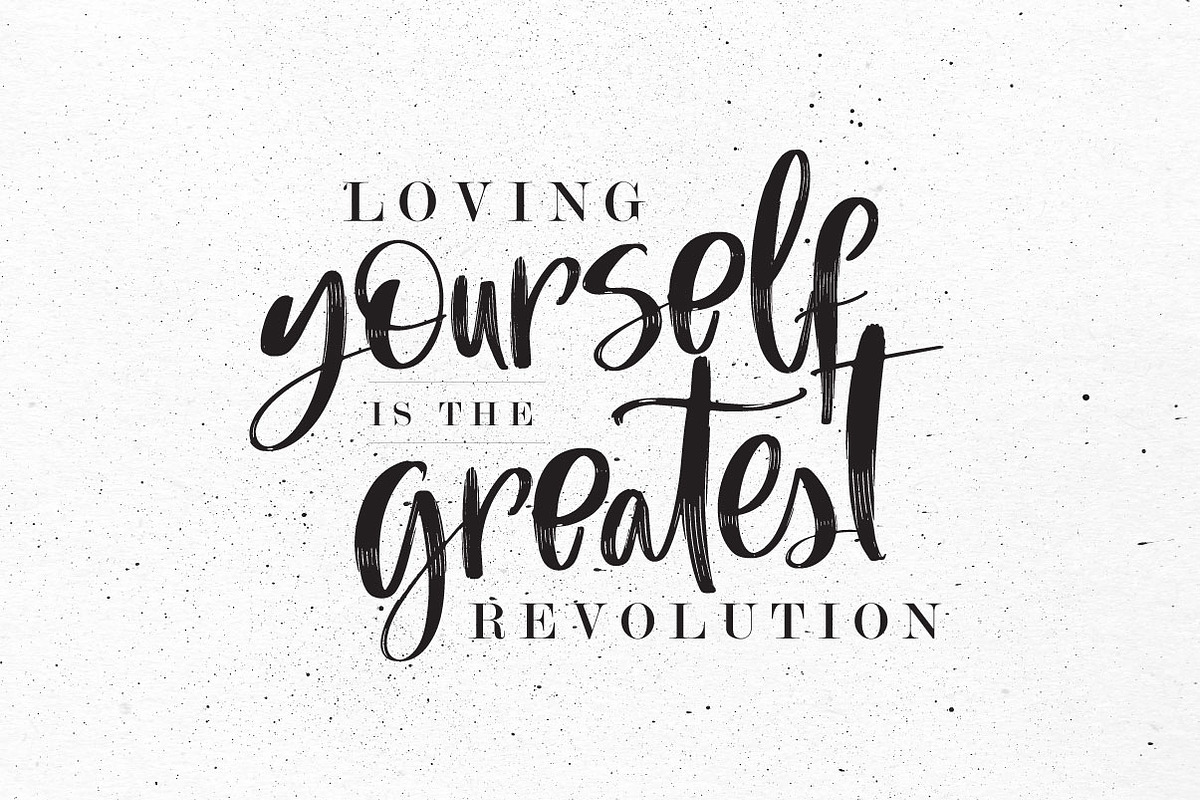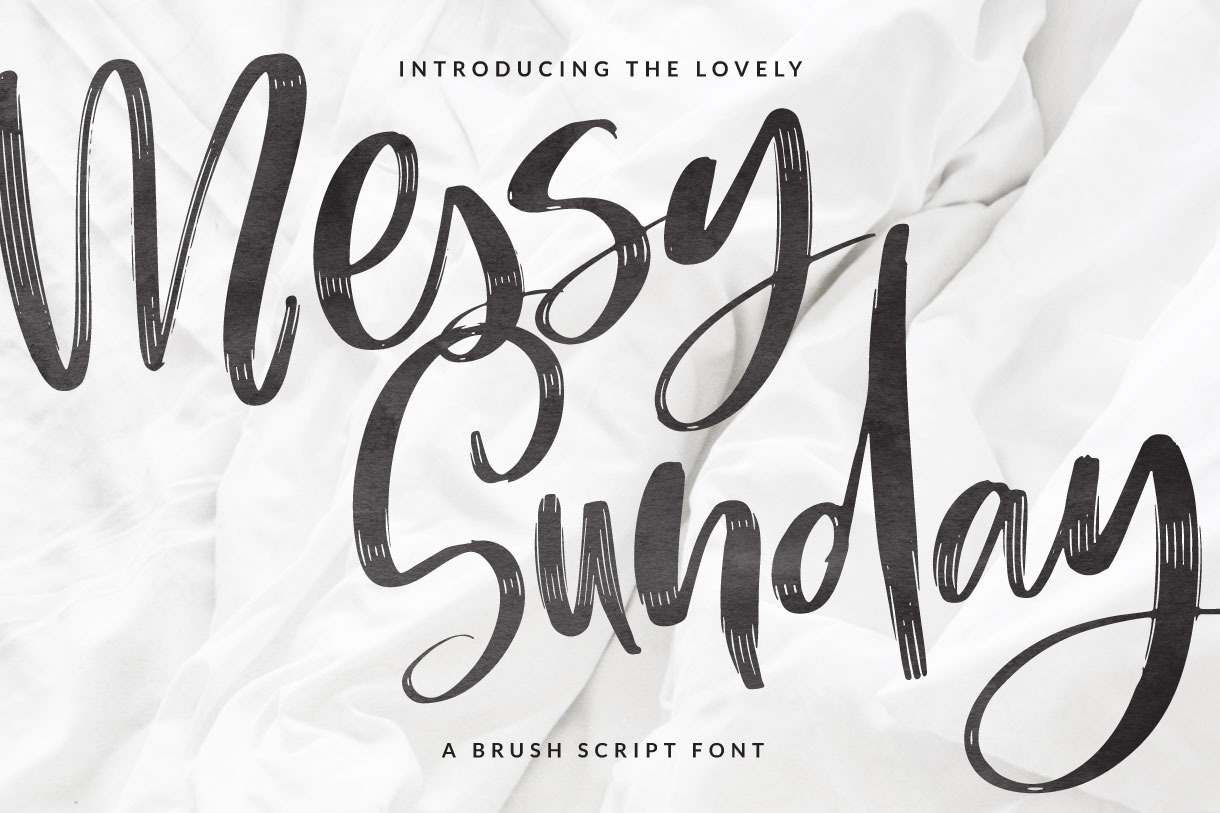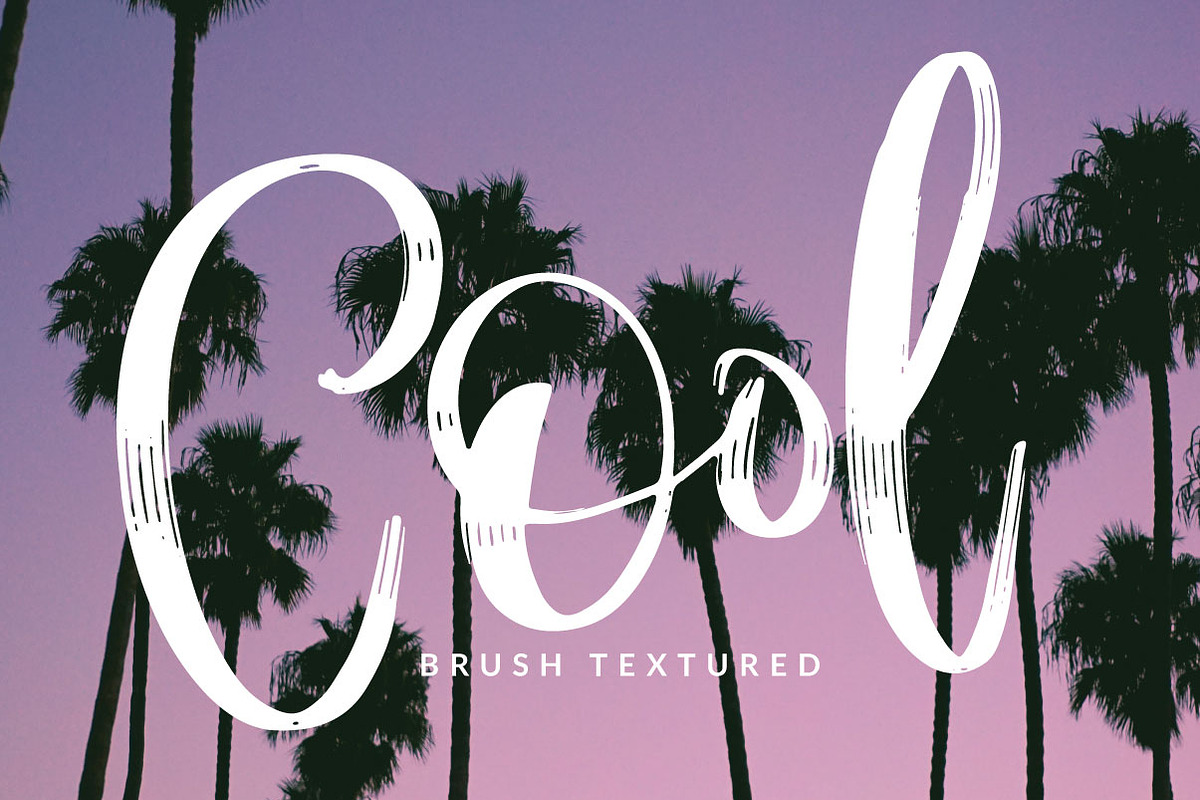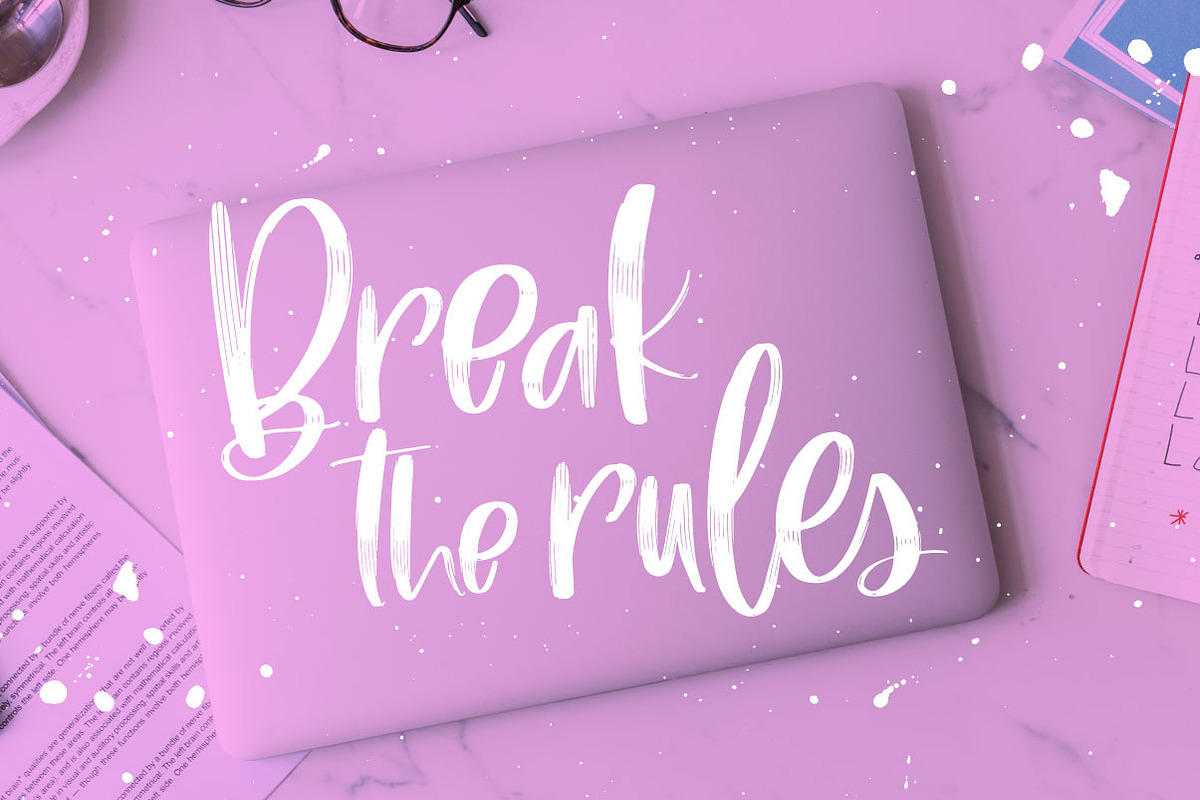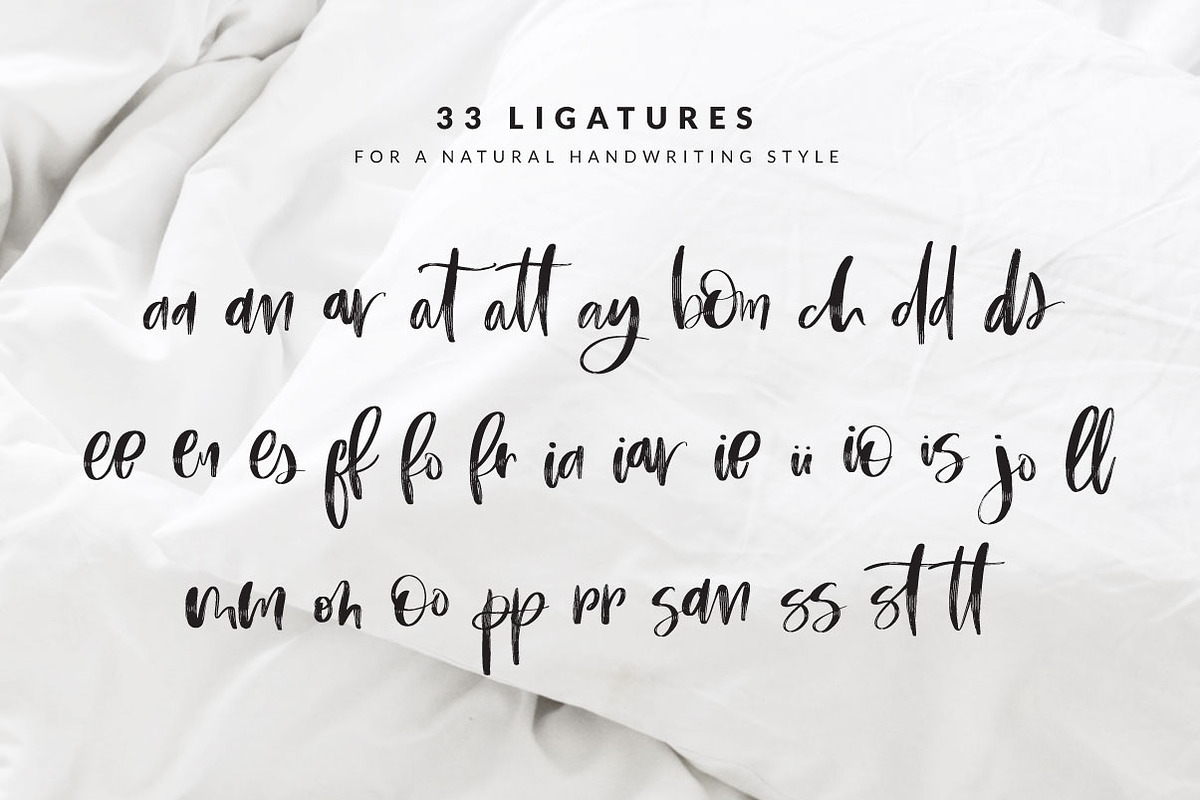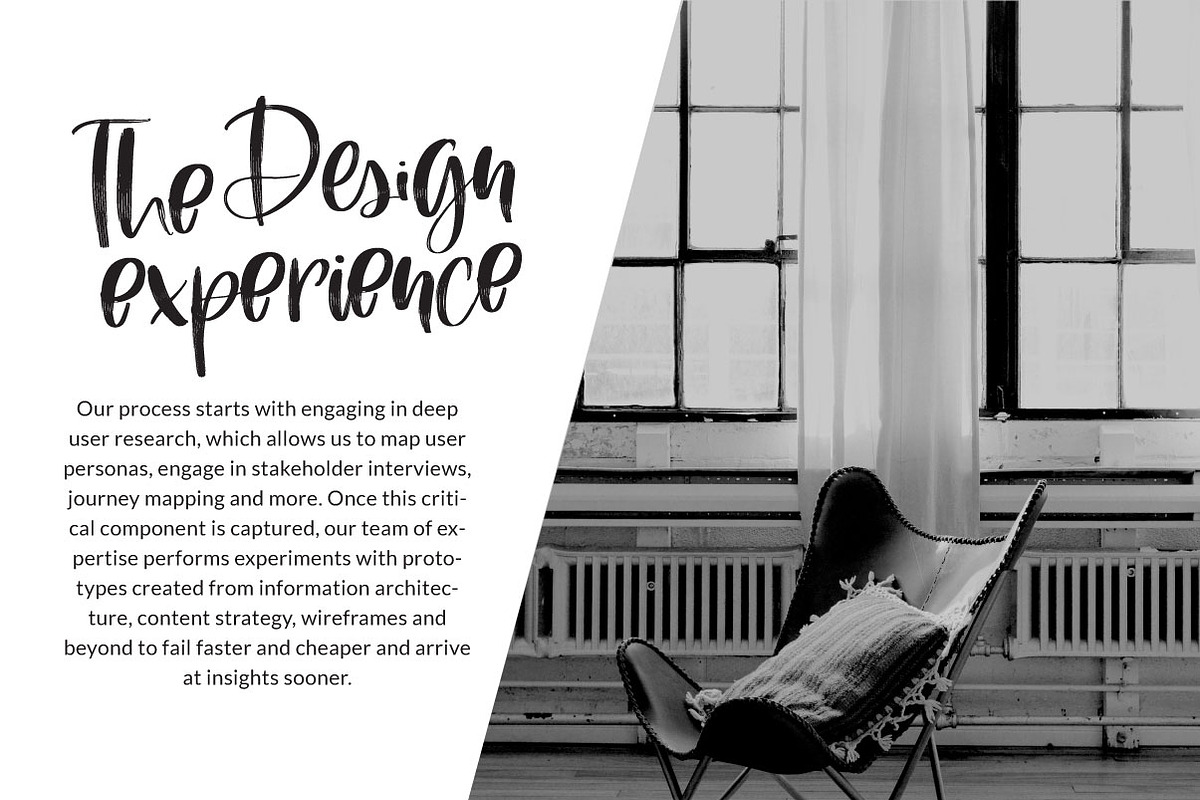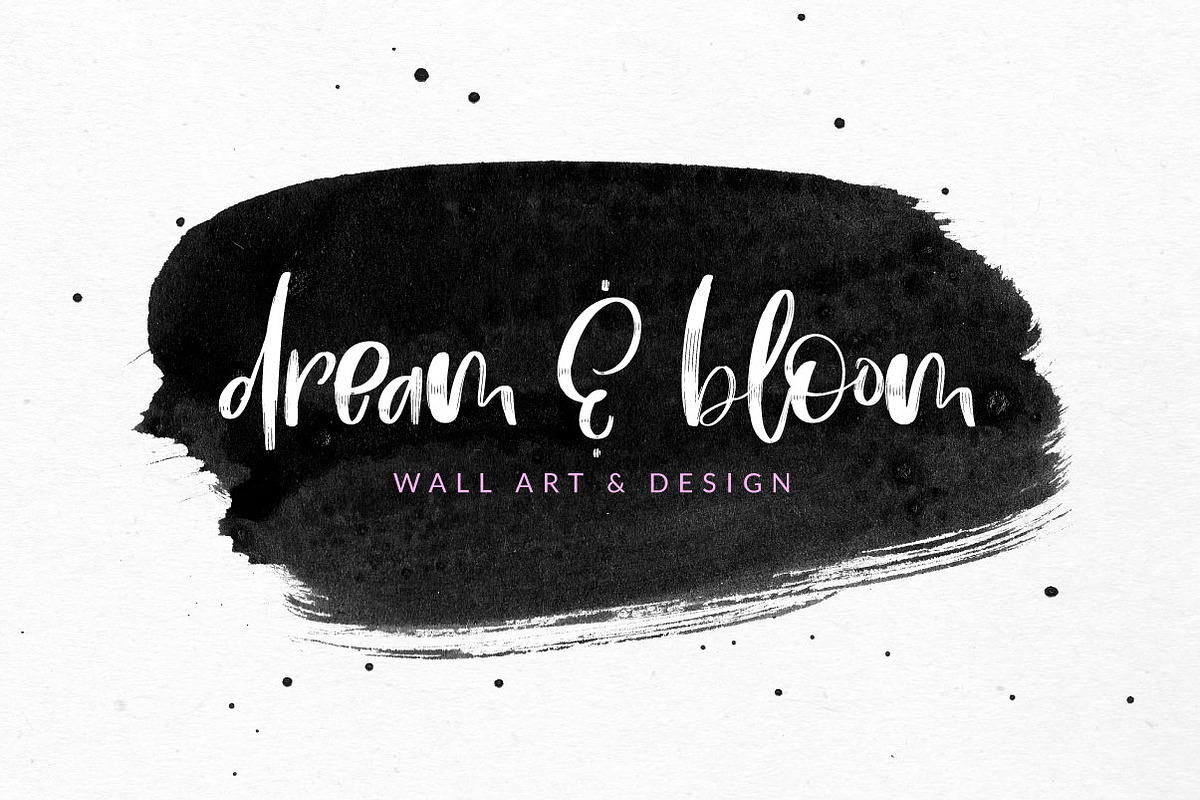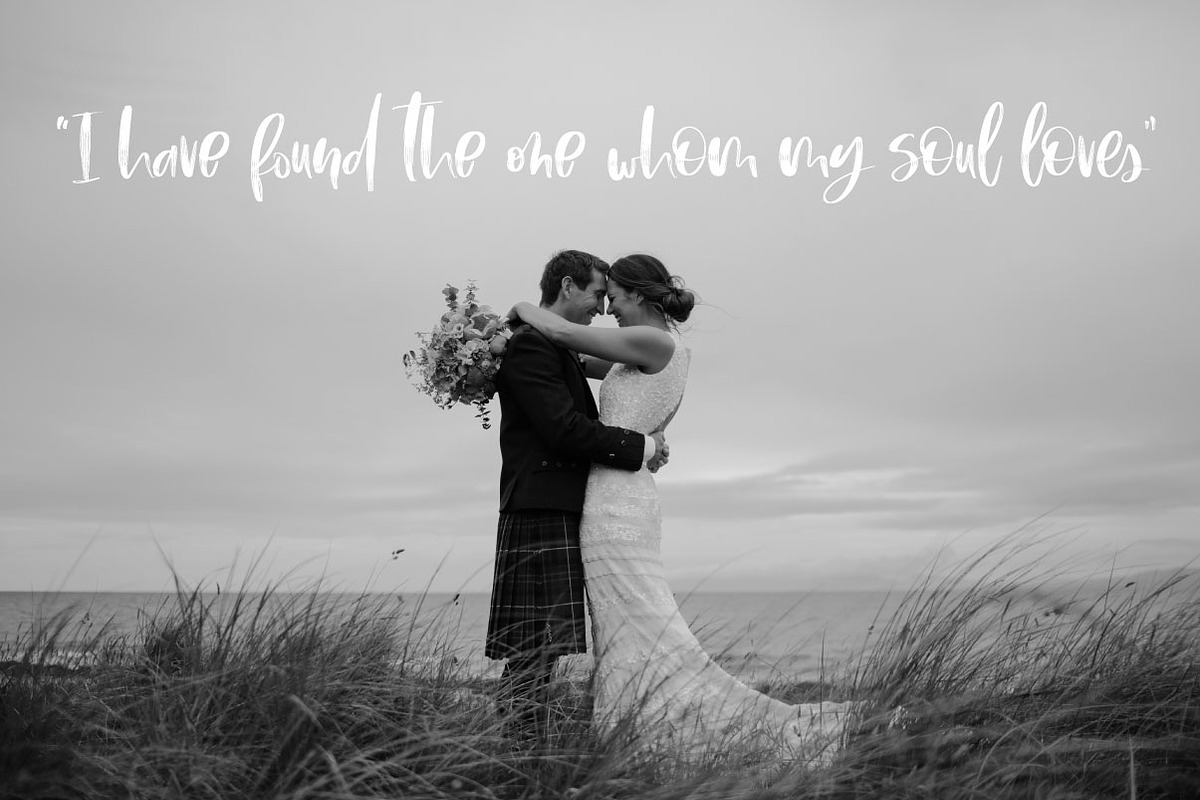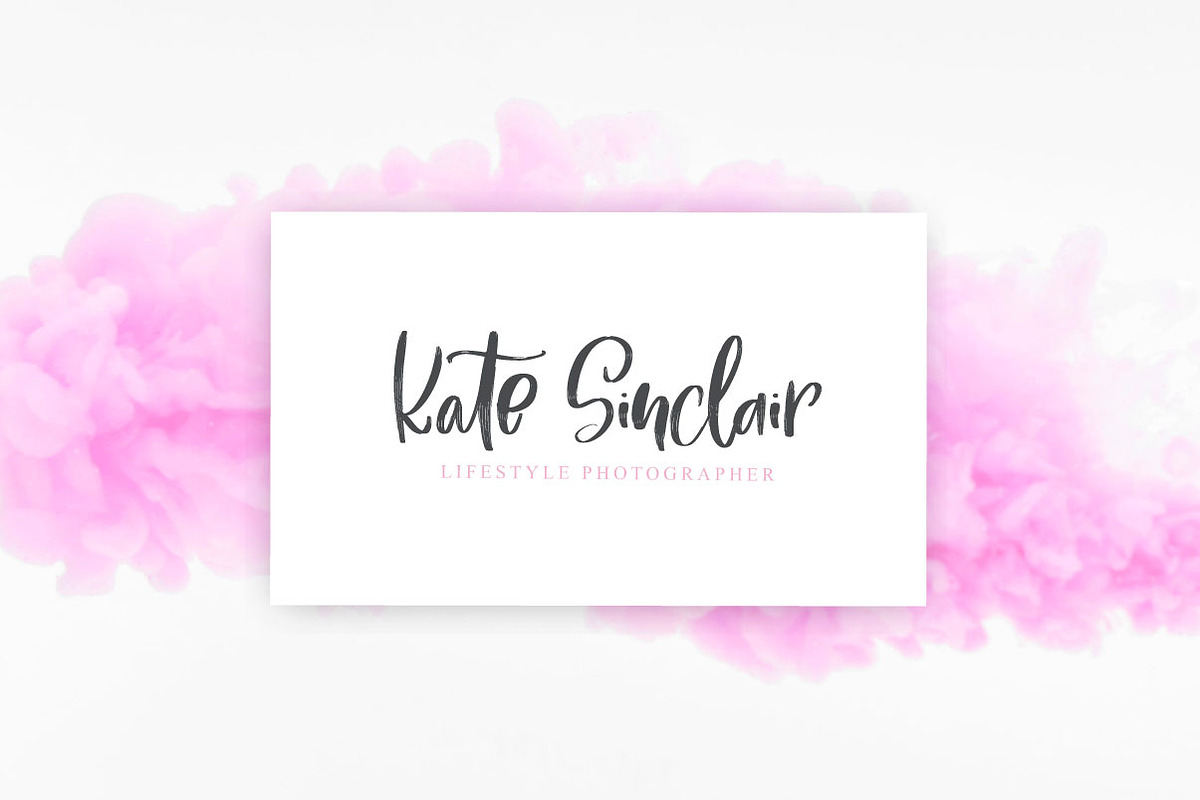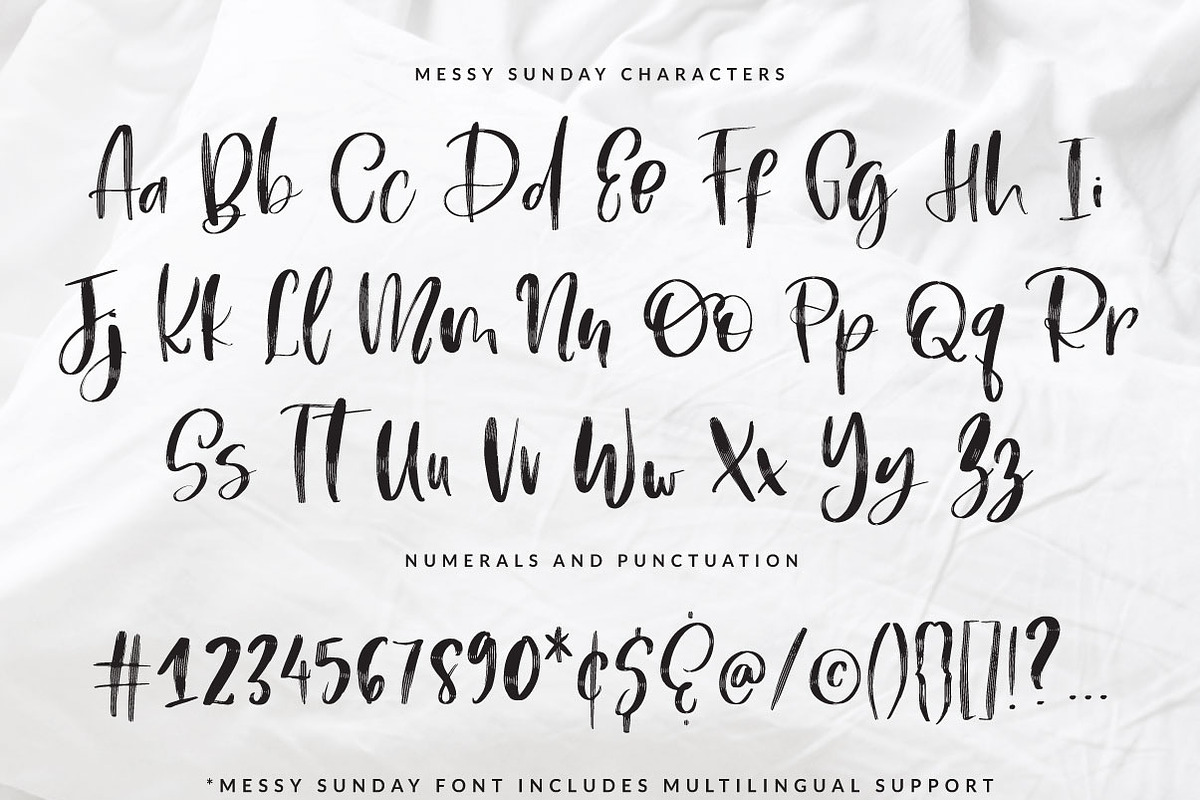
Messy Sunday Script Font
Introducing Messy Sunday!!
A casual and catchy font, its brush texture and 33 particular ligatures make it extra special for projects with a natural handwriting look. Fill with handmade natural and thick round shapes. If you're looking for a font that can suit your text headline, quotes, print cover, an eye-catching photo post or even turning it into your next brand logo. Messy Sunday is a super playful font with a lovely bouncy feeling.
- Full upper and lowercase
- 33 custom ligatures
Supported Languages:
Afrikaans, Albanian, Catalan, Croatian, Czech, Danish, Dutch, Estonian, Finnish French, German Icelandic, Italian, Maltese, Norwegian, Portuguese, Romanian, Slovenian, Spanish, Swedish, Latvian, Lithuanian, Turkish among others.